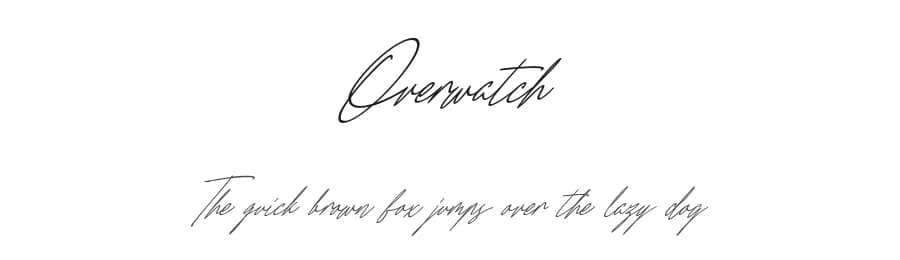
About Overwatch Font
Overwatch Specifications
| Font Family | Overwatch |
| Full Name | Overwatch-Regular |
| Glyph Count | 178 glyphs |
| PostScript Name | Overwatch-Regular |
| Designer | exfont.com |
Overwatch Font is a script font that shines as a display or heading face. Pair it with a clean sans-serif or serif font for body text β the contrast creates a clear hierarchy while the two styles stay balanced and easy to read.
Overwatch Font